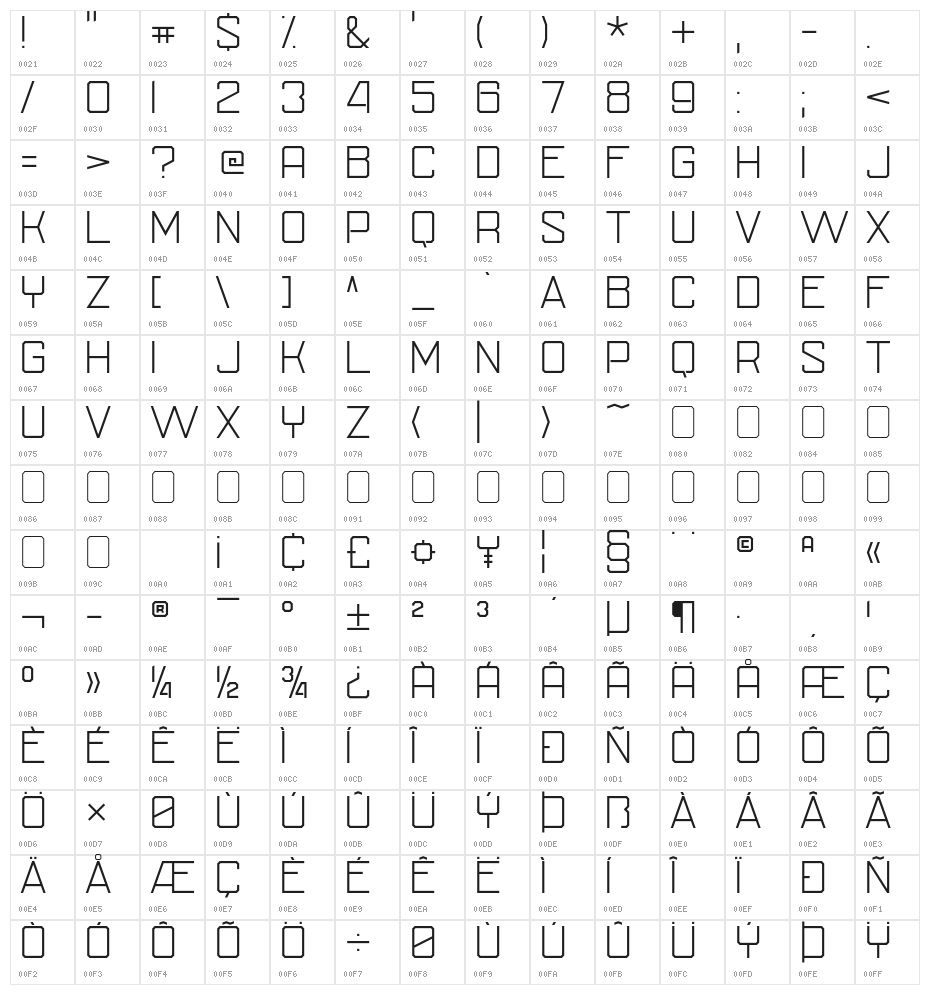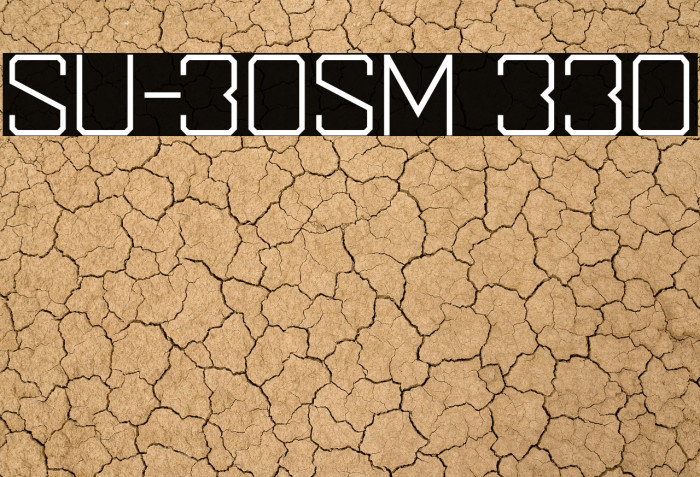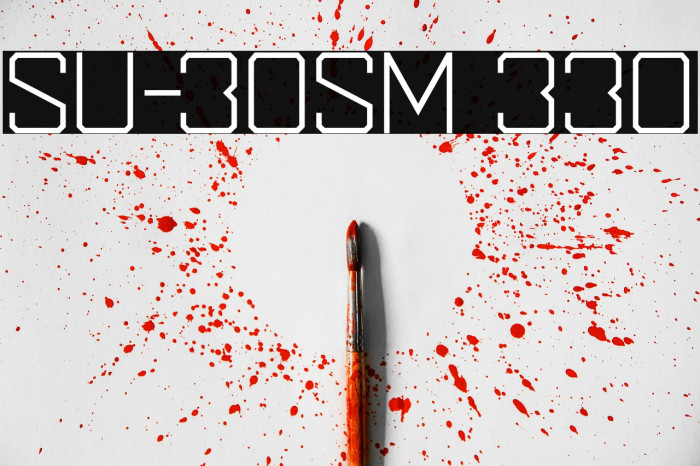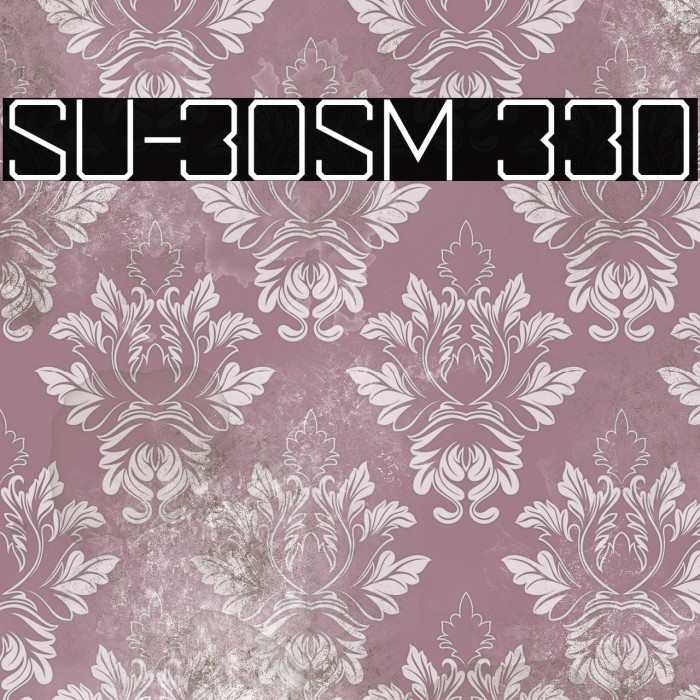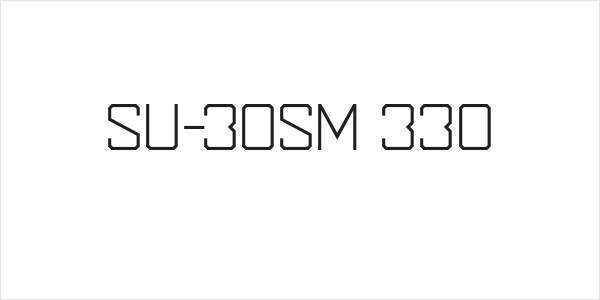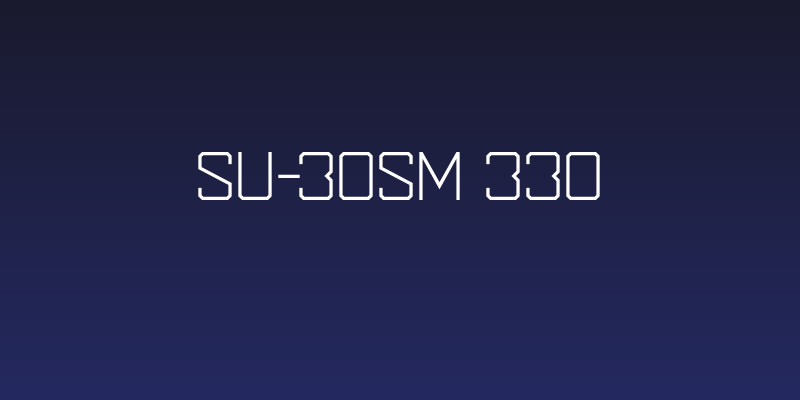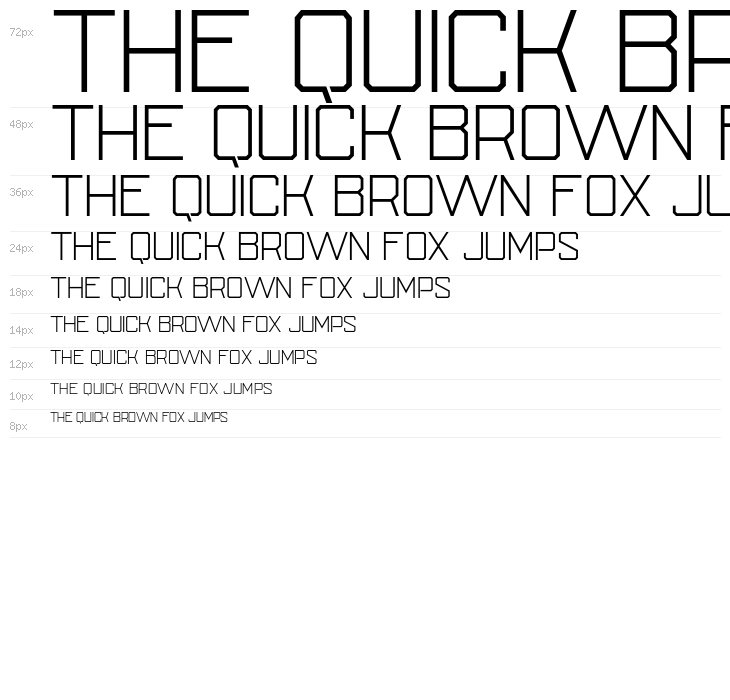
SU-30SM 330 Font
SU-30SM 330 Description
This font features a geometric and technical design, characterized by its angular and precise letterforms. The uppercase letters exhibit a uniform height and width, creating a balanced and structured appearance. The numerals and special characters maintain this consistency, adding to the font's cohesive look. The strokes are even and consistent, with a medium contrast that enhances readability while maintaining a modern aesthetic. The font's clean lines and sharp angles make it suitable for projects that require a contemporary and professional feel.